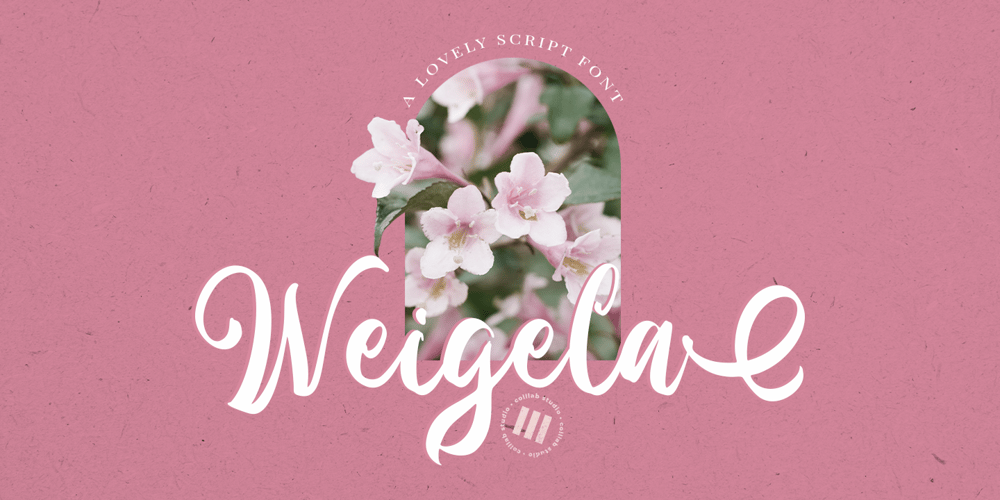
Weigela Font Family was designed by Muh. Aswar and published by Colllab Studio. Weigela contains 1 styles and family package options. Presenting Weigela! A Beauty Script Font 6 alternates and extra. This font made with the perfect combination of each character. You can combine with Alternates and Extra to get a unique combination. It looks original and can be used for all your project needs. Each glyph has its own uniqueness and when meeting with others will provide dynamic and pleasing proximity. This font can be used at any time and in any project. You can see in the presentation picture above, Weigela looks beautiful and versatile on design projects.So, Weigela Font can’t wait to give its touch to all your design projects such as quotes, wedding invitations, wedding theme designs, poster design, personal branding, promotional materials, website, logotype, product packaging, etc.WHAT’S INCLUDED? Weigela Regular • It comes with uppercase, lowercase, ligatures, numeral, punctuation, symbols, Many Ligatures, Alternates, and Standard Latin Multilingual Support (Afrikaans, Albanian, Catalan, Danish, Dutch, English, French, German, Icelandic, Indonesian, Italian, Malay, Norwegian, Portuguese, Spanisch, Swedish, Zulu, and More). Weigela Stylish Alternate • It comes with the lowercase of ending swash. Weigela Alternate One • It comes with the lowercase of beginning swash. Weigela Alternate Two • It comes with the lowercase of ending swash Weigela Alternate Three • It comes with the lowercase of love connecting swash. Weigela Alternate Four • It comes with the lowercase of love connecting swash. Weigela Alternate Five • It comes with the lowercase of love connecting swash. Weigela Alternate Six • It comes with some lowercase; b, d, f, k, and l. Extra Swashes • Included 15 Underline Swashes. You can feature all with typing c_1 until c_15 (Opentype Feature) or using Characters Map Tool. A Million ThanksColllab Studio